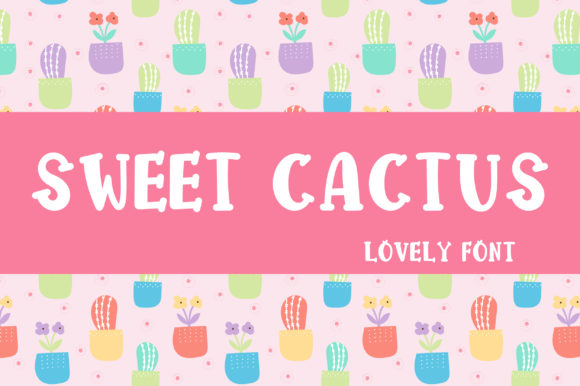
In a world where uniqueness and creativity collide, there exists a font that captures the spirit of joy and playfulness—Sweet Cactus. This charming display font, designed by PearlyDaisy, is not just a collection of letters; it's an invitation to embark on a whimsical journey where words dance and stories come alive.
Imagine the delight of your audience as they encounter your creations adorned with Sweet Cactus. Its enchanting curves and playful shapes bring a smile to the face and ignite the imagination. Teaching English has never been this exciting, as Sweet Cactus transforms lessons into captivating adventures. The font's unique style captivates young learners, keeping them engaged and eager to explore the world of language.
Sweet Cactus is like a melody that flows effortlessly from your fingertips, adding a touch of magic to every design project. Whether you're crafting invitations, creating posters, or designing social media posts, this font adds a spark of creativity and personality. Its versatility extends to logos, branding, and packaging, leaving an unforgettable impression on your customers.
With Sweet Cactus, you become a storyteller, weaving captivating tales through the art of typography. Its energetic vibes make it perfect for children's books, where every page bursts with imagination and wonder. Unleash your inner artist and let Sweet Cactus be your muse, guiding you to create designs that inspire, amuse, and leave a lasting impact.